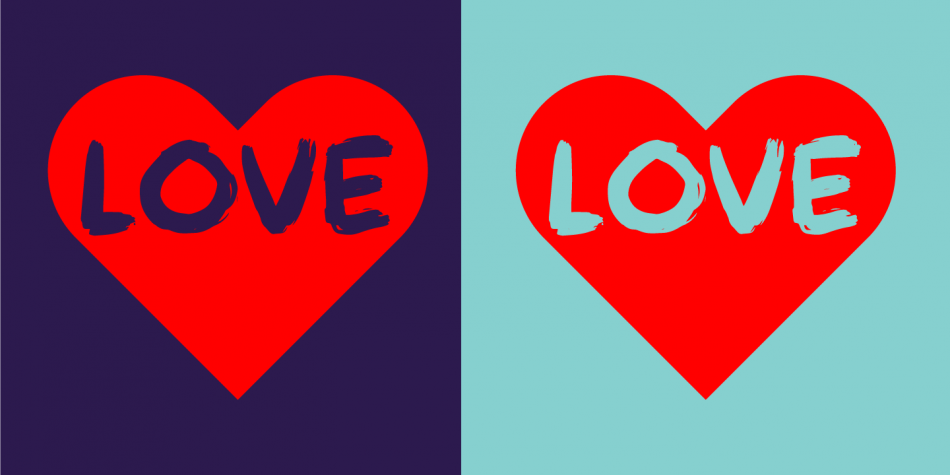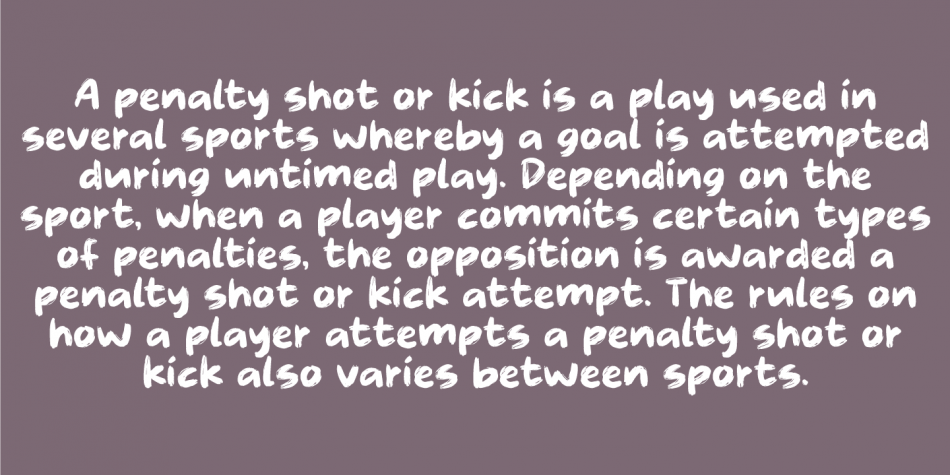
| Designed by Jakob Fischer, Straffespark is a brush display font family. This typeface has two styles and was published by Pizzadude.dk. |
Straffespark was finished while watching Denmark play against Croatia in soccer. Denmark lost, but the danish keeper (Kasper Schmeichel) managed to save a few penalties for Denmark.
And, “Straffespark” is danish for “Penalty” ... hopefully one day, I will finish a font called something like “Victory for Denmark” :)